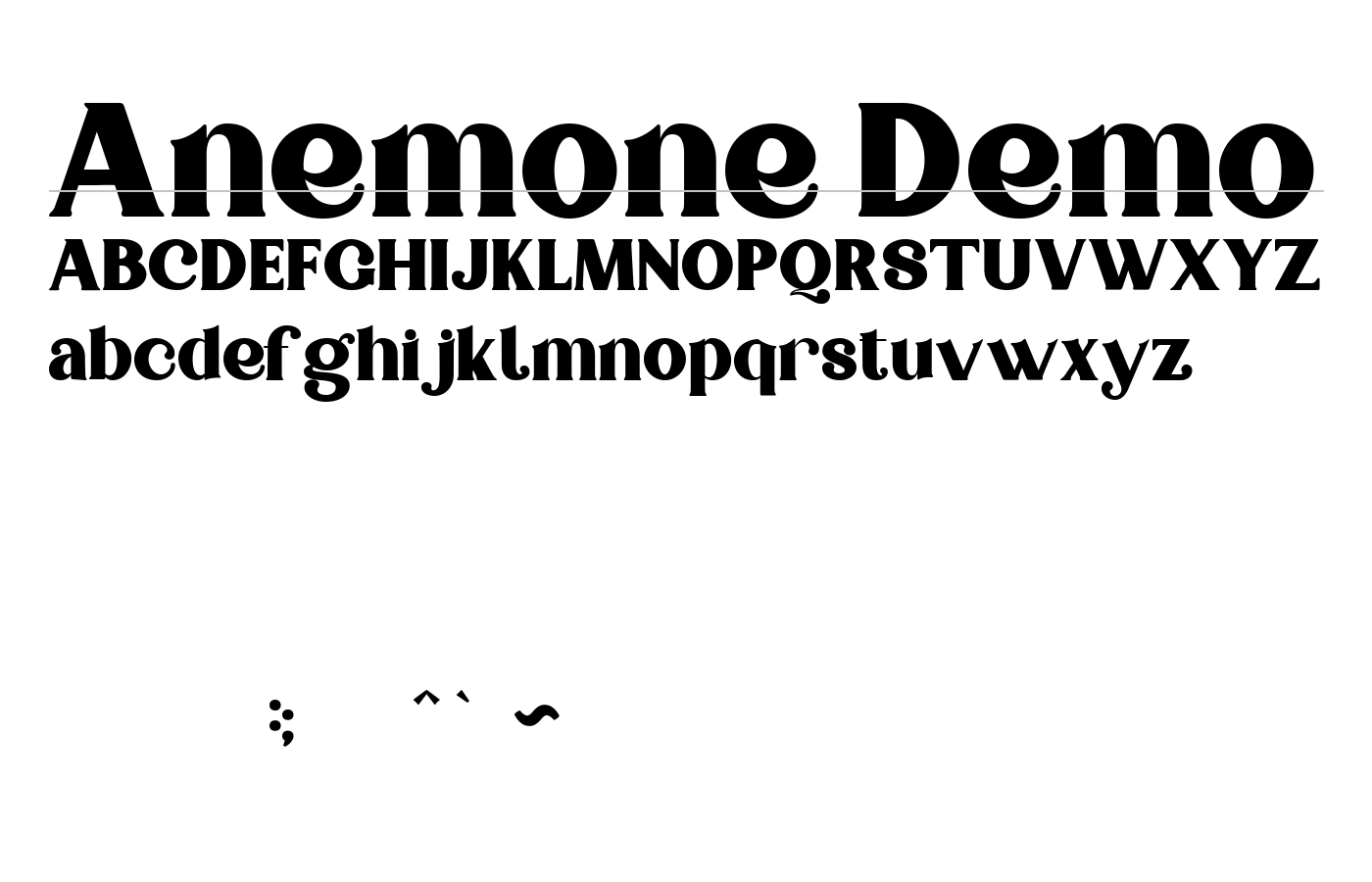
Anemone Demo is a bold serif font with a distinctive vintage charm, combining strong, bracketed serifs with thick and thin stroke contrasts that give it a confident and elegant appearance. Its unique letterforms, including stylized tails and curved features, make it perfect for eye-catching headlines, logos, and editorial designs where a classic yet playful personality is desired. This font works well in branding and packaging that seeks to convey sophistication with a touch of creativity.
Anemone Demo Font
About Anemone Demo Font